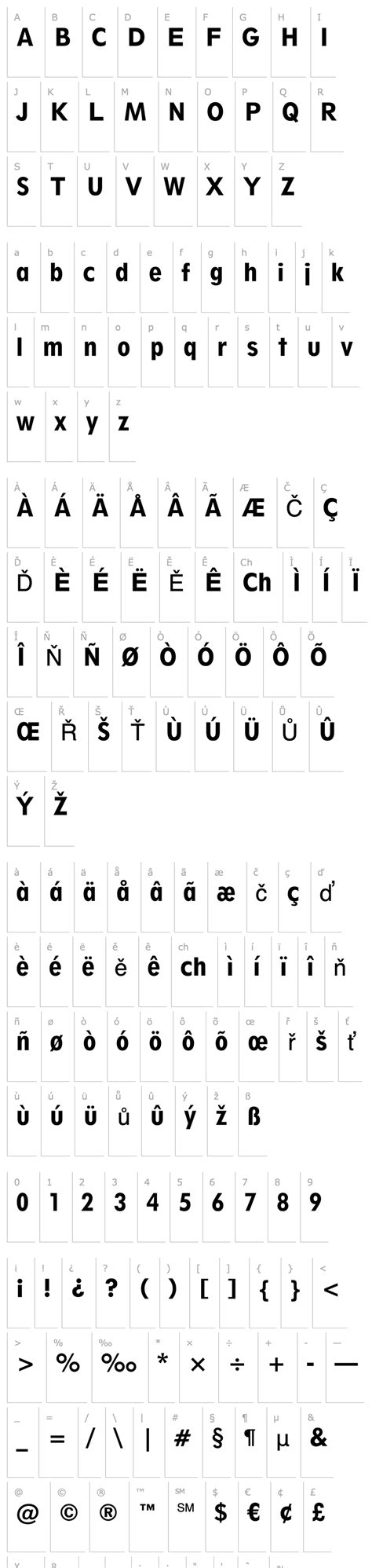
Unlock Impact: Geometric 212 BT Heavy Condensed Font Guide
Hey there, design enthusiasts and typography aficionados! If you’re looking to make a serious statement with your text, then you’ve absolutely landed in the right place. Today, we’re diving deep into the world of the Geometric 212 BT Heavy Condensed Font – a typeface that’s not just a set of letters, but a powerful design tool capable of transforming your projects from mundane to magnificent. This font, guys, isn’t for the faint of heart; it’s bold, it’s impactful, and it demands attention. Whether you’re a seasoned graphic designer, a marketing guru crafting compelling headlines, or just someone fascinated by the sheer artistry of typography, understanding the nuances of Geometric 212 BT Heavy Condensed is going to be a game-changer for your visual communication. We’re going to explore what makes this font so incredibly unique, how its design elements come together to create such a powerful presence, and exactly where and how you can best leverage its distinct characteristics to elevate your designs. Get ready to discover a font that marries historical geometric precision with a modern, unapologetic punch, offering unparalleled versatility for a wide array of creative endeavors. This isn’t just about picking a font; it’s about making a strategic choice that communicates strength, clarity, and undeniable presence, making your message resonate deeply with your audience. We’ll uncover its lineage, its most effective applications, and even some pro tips to ensure your usage of this formidable typeface is always on point. So buckle up, because we’re about to give you the ultimate guide to mastering the Geometric 212 BT Heavy Condensed Font and making your designs truly pop!
What Makes Geometric 212 BT Heavy Condensed Font Stand Out?
So, what exactly makes the Geometric 212 BT Heavy Condensed Font such a powerhouse in the world of typography? Well, my friends, it’s all in the name! Let’s break down these key attributes because understanding them is crucial to truly appreciate and effectively utilize this spectacular typeface. First off, the term “ Geometric ” isn’t just a fancy label; it points to the fundamental construction principles of the font. Imagine letters built with circles, squares, and triangles – fundamental, pure shapes that give this font a sense of order, precision, and modernity. This geometric foundation ensures clean lines and a strong, architectural feel, making it incredibly appealing for contemporary design. It speaks to a heritage rooted in early 20th-century design movements like Bauhaus, where form followed function and minimalist aesthetics reigned supreme. The inherent simplicity in its geometric structure contributes to its exceptional clarity, even when scaled large or used in high-impact settings. This isn’t a whimsical, ornate font; it’s direct, purposeful, and strikingly clear, making your message unmistakable.
Next up, we have “ Heavy ,” and oh boy, does this font deliver on that promise! The weight of Geometric 212 BT Heavy Condensed Font is significant. We’re talking thick, robust strokes that give each character a profound visual presence. This isn’t a lightweight, airy font; it’s got substance, a real punch that jumps off the page (or screen!). This heavy weight makes it absolutely ideal for headlines, logos, and any situation where you need text to grab attention instantly and refuse to let go. Think about billboards, magazine covers, or even app interfaces where quick, impactful communication is paramount. The boldness isn’t just for show; it enhances readability in certain contexts, particularly when contrasting against lighter backgrounds or busy imagery. It ensures that your crucial message is seen and absorbed, even at a glance, providing that immediate visual anchor that designers often crave. This heavy characteristic is what gives the font its undeniable authority and commanding presence, making it a go-to for projects that demand strong visual impact and memorable branding. It’s the visual equivalent of shouting your message, but in a sophisticated, well-designed way.
Finally, the “ Condensed ” aspect is another critical differentiator for the Geometric 212 BT Heavy Condensed Font . This means the letterforms are narrower than standard typefaces, allowing more characters to fit into a given horizontal space without sacrificing readability. This characteristic is incredibly valuable when you need to convey a lot of information in a limited area, or when you want to create a sense of verticality and sleekness. Imagine designing a poster where space is at a premium, or a website banner where every pixel counts – the condensed nature of this font becomes your best friend. It offers efficiency without compromise, a truly impressive feat for such a bold typeface. This combination of geometric structure, heavy weight, and condensed proportions results in a font that is both commanding and economical, modern and timeless. It’s a versatile tool that allows designers to achieve maximum impact with minimal footprint, making it a staple in various design disciplines. So, when you bring these three elements together – Geometric, Heavy, and Condensed – you get a font that isn’t just visually striking but also highly functional and incredibly adaptable for a myriad of design challenges. It’s truly a masterclass in typography, offering a unique blend of style and utility that sets it apart from the crowd.
The Historical Roots and Design Philosophy of Geometric Fonts
To truly appreciate the Geometric 212 BT Heavy Condensed Font , it’s super helpful to understand where it comes from, historically speaking. This typeface doesn’t just exist in a vacuum; it’s a proud descendent of a rich and fascinating lineage of geometric sans-serif fonts that really took off in the early 20th century. Guys, we’re talking about a revolutionary period in design when artists and typographers were actively rebelling against the ornate, decorative styles of the past and embracing a cleaner, more functional aesthetic. Movements like Bauhaus in Germany and Art Deco across Europe and America played a huge role in popularizing geometric forms in everything from architecture to graphic design. The core idea behind these movements was a belief that design should be rational, efficient, and derived from fundamental, universal shapes – circles, squares, and triangles. This philosophy aimed for clarity, objectivity, and a modern, forward-looking sensibility that resonated with the industrial age. Pioneering typefaces from this era, like Futura by Paul Renner or Erbar by Jakob Erbar, were groundbreaking because they stripped away serifs and emphasized these geometric constructions, giving text a newfound simplicity and power. These early geometric sans-serifs were seen as embodying the spirit of modernity, progress, and universal appeal, moving away from subjective, handwritten aesthetics towards something more objective and machine-like.
Now, how does our beloved Geometric 212 BT Heavy Condensed Font fit into this incredible history? Well, it absolutely carries that torch, building on the foundational principles established by those early pioneers. While it might not be one of the very first geometric fonts, its design clearly draws inspiration from that same ethos: a commitment to clarity, structure, and impact through simplified forms. The “BT” in its name typically refers to Bitstream, a prominent digital type foundry known for digitizing and expanding classic typefaces, often adding their own interpretations or creating new fonts inspired by historical styles. This means Geometric 212 BT is a modern interpretation, or perhaps a homage, to those powerful geometric typefaces that shaped 20th-century design. It takes that classic geometric foundation and amplifies certain characteristics, particularly the